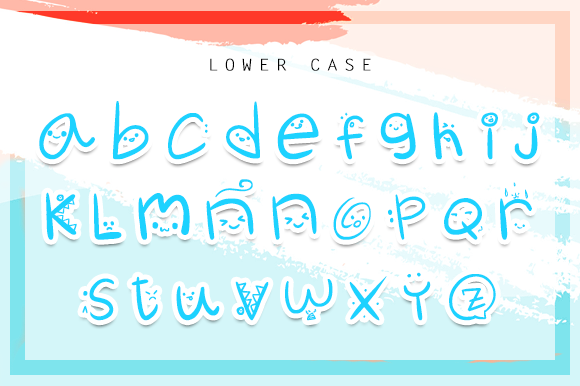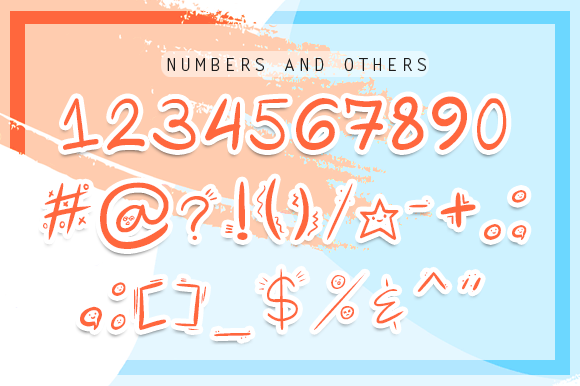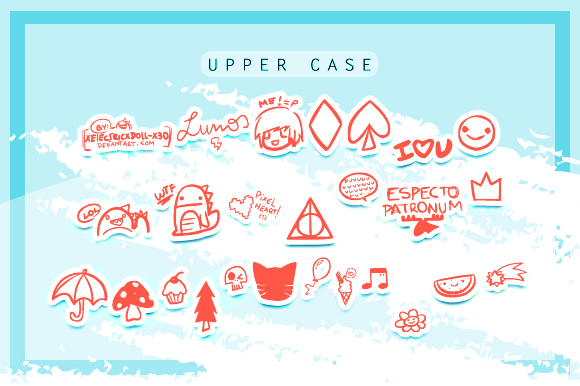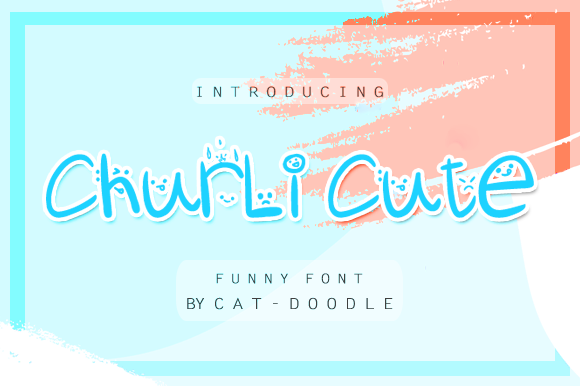
Introducing Churli Cute Font: The Sweet and Lovely Decorative Font with a Modern Vibe
Are you a designer, crafter, or DIY enthusiast looking for a font that can add a touch of sweetness and charm to your projects? Look no further than Churli Cute Font! This adorable decorative font is perfect for creating inspiring and visually appealing designs that are sure to capture the hearts of your audience. In this article, we’ll take a closer look at Churli Cute Font, its unique features, and how you can use it to elevate your creative projects.
What is Churli Cute Font?
Churli Cute Font is a sweet and lovely decorative font that boasts a modern vibe. Its unique charm is sure to inspire your creativity and add a touch of personality to your designs. Whether you’re working on a DIY project, creating social media graphics, or designing a brand identity, Churli Cute Font is the perfect choice. Its playful and whimsical feel makes it ideal for a wide range of applications, from crafting and scrapbooking to digital design and branding.
Key Features of Churli Cute Font
So, what makes Churli Cute Font so special? Here are some of its key features:
• Unique and playful design: Churli Cute Font features a one-of-a-kind design that’s both sweet and charming. Its playful curves and lines add a touch of whimsy to any design.
• Modern vibe: Despite its playful feel, Churli Cute Font has a distinctly modern vibe that’s perfect for contemporary designs.
• Highly versatile: Churli Cute Font can be used for a wide range of applications, from digital design to crafting and scrapbooking.
• Easily readable: Despite its decorative nature, Churli Cute Font is highly readable, making it perfect for use in body text and headings.
How to Use Churli Cute Font in Your Designs
Now that we’ve covered the basics of Churli Cute Font, let’s talk about how you can use it in your designs. Here are a few ideas to get you started:
• Crafting and scrapbooking: Add a touch of sweetness to your scrapbook pages, cards, and other crafting projects with Churli Cute Font.
• Social media graphics: Use Churli Cute Font to create eye-catching social media graphics that are sure to stand out.
• Branding and identity: Create a unique and memorable brand identity with Churli Cute Font.
• Digital design: Use Churli Cute Font in your digital designs, such as website headers, blog posts, and more.
Tips and Tricks for Working with Churli Cute Font
Here are a few tips and tricks to help you get the most out of Churli Cute Font:
• Experiment with different colors: Churli Cute Font looks great in a variety of colors, so don’t be afraid to experiment and find the perfect hue for your design.
• Pair it with other fonts: Churli Cute Font pairs well with a range of other fonts, so try combining it with different fonts to create a unique look.
• Use it sparingly: While Churli Cute Font is perfect for adding a touch of sweetness to your designs, it’s best used sparingly. Try using it for headings or accents to add visual interest.
Churli Cute Font is a sweet and lovely decorative font that’s perfect for designers, crafters, and DIY enthusiasts. Its unique charm and modern vibe make it a versatile choice for a wide range of applications. With its highly readable design and playful feel, Churli Cute Font is sure to inspire your creativity and add a touch of personality to your designs. So why wait? Download Churli Cute Font today and start creating!